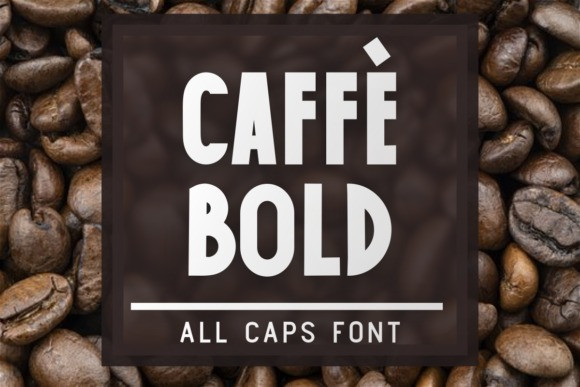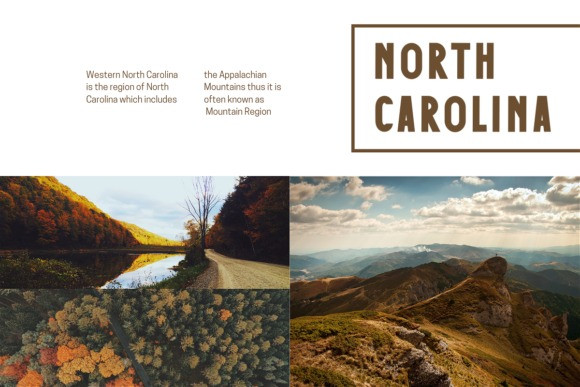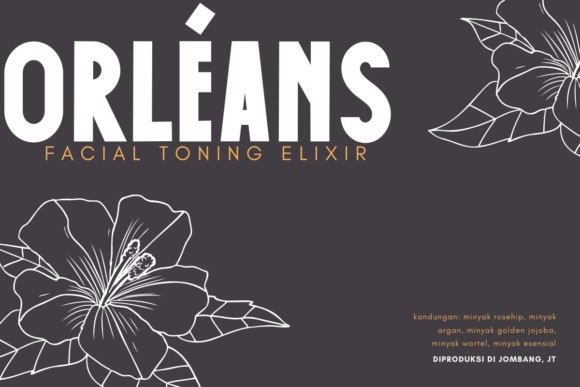
BEFANO Sans Serif Font
BEFANO is a simple and modern sans serif font. It’s playfulness make it great for creative projects. Excellent for headlines, caption, brand logo, t-shirt, school & university, and more.